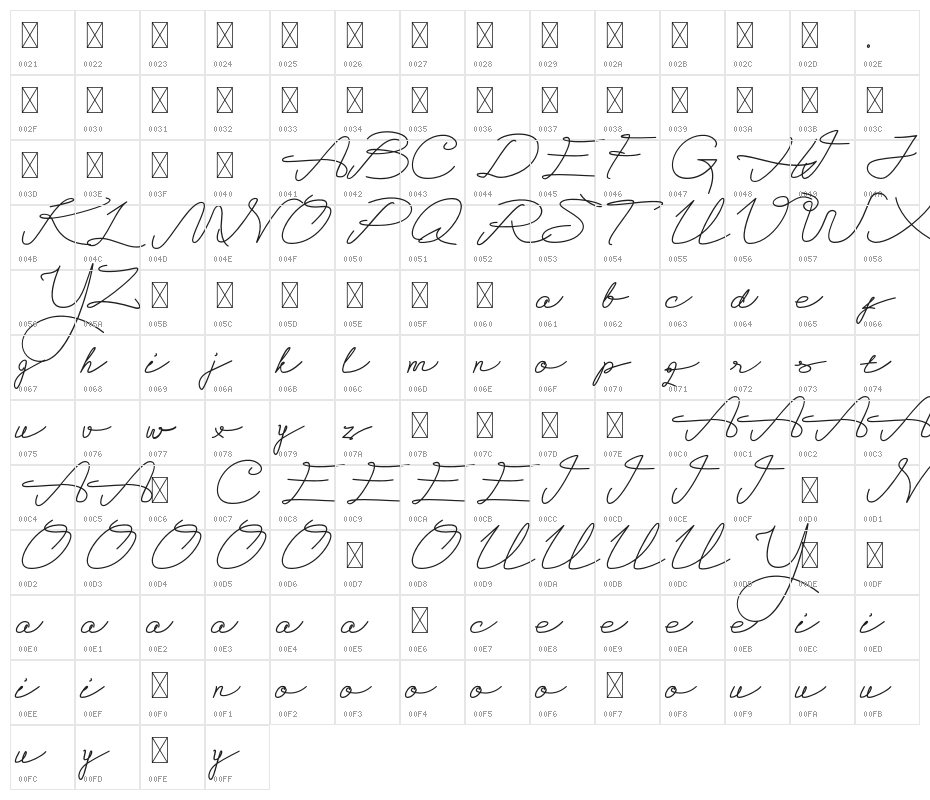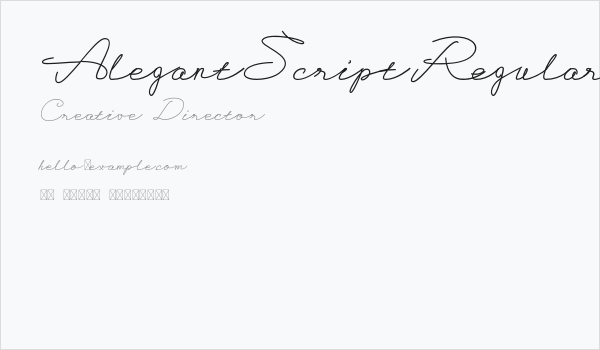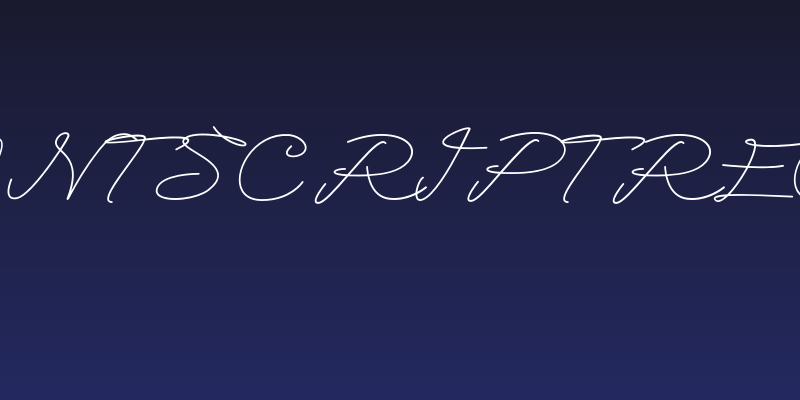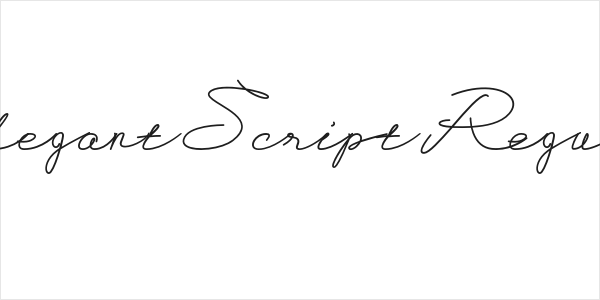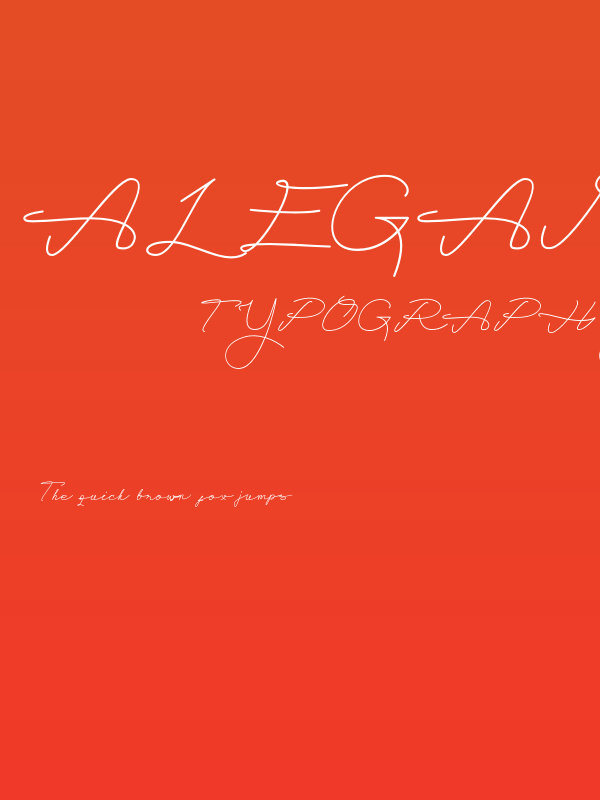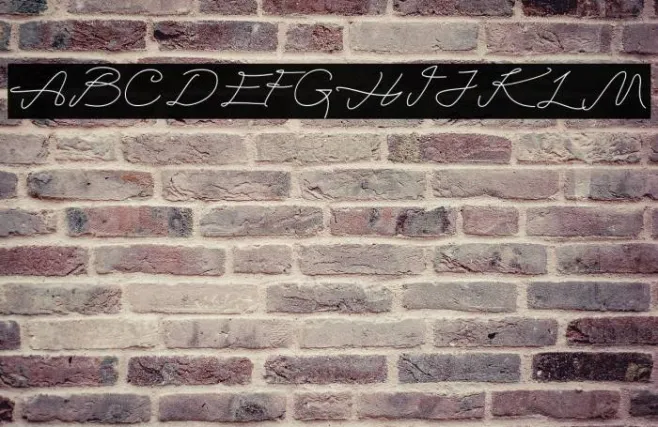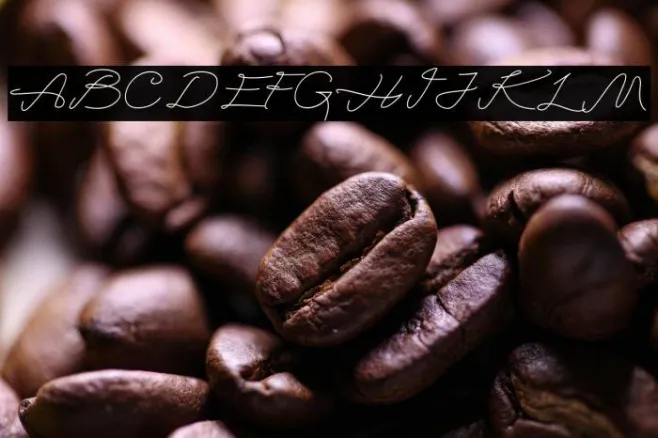
AlegantScriptRegular Font
AlegantScriptRegular Description
This font exudes elegance and sophistication with its fluid, cursive script style. The characters are connected seamlessly, creating a smooth and flowing appearance. The uppercase letters are slightly more ornate, with delicate loops and swashes that add a touch of flair. The lowercase letters maintain a consistent rhythm, enhancing readability while preserving the font's graceful aesthetic. The overall design is reminiscent of traditional calligraphy, yet it retains a modern sensibility that makes it versatile for various applications. The absence of special characters suggests a focus on simplicity and elegance.
| Proposed Projects | Ideal for wedding invitations, elegant branding, personal stationery, and high-end product packaging. |